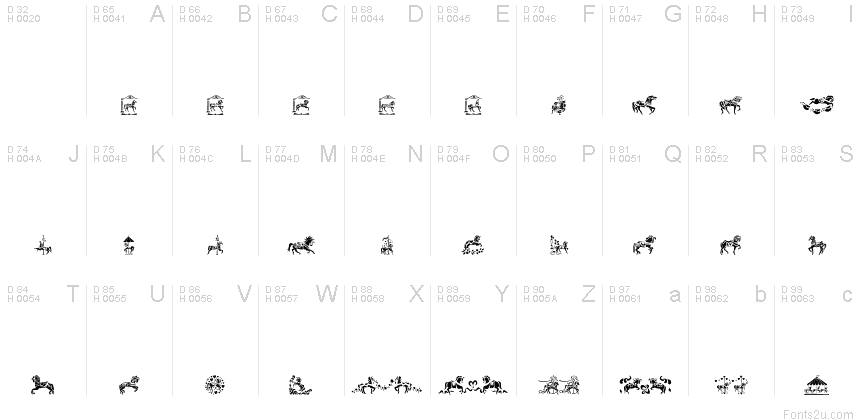
Carousel Horses by Denise Clendenin is a free equestrian dingbat font built from prancing carousel horses and ornamental fairground motifs. Its cut-paper silhouettes combine flowing manes, arched bodies, and curling flourishes. The forms have a lively theatrical sweep.
Designers working on circus and fairground themes will find it useful for posters and event graphics. It can also shape children's publishing and carousel-themed merchandise, with the horse figures acting as illustrations rather than ordinary text. The repeated equestrian imagery makes it especially apt for nostalgic amusement projects.